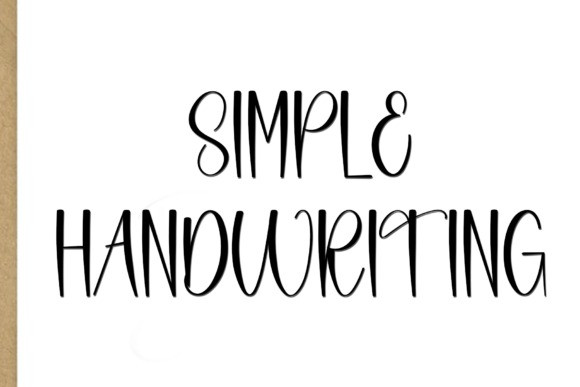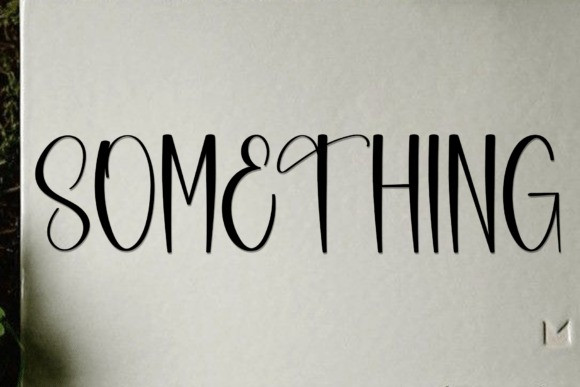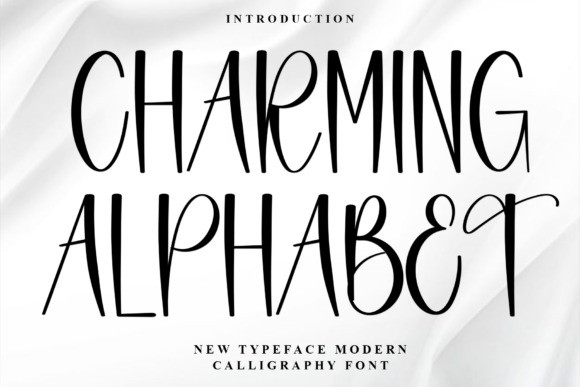
Charming Alphabet Font is a quirky, tall, and expressive modern calligraphy font with a handwritten flair. Its elongated letterforms and whimsical strokes give it a delightful, youthful character—perfect for greeting cards, invitations, logos, quotes, or kid-themed designs. With a blend of elegance and personality, this font will make your creative projects pop with charm.